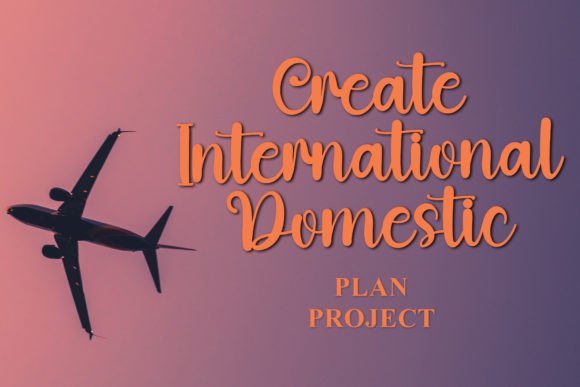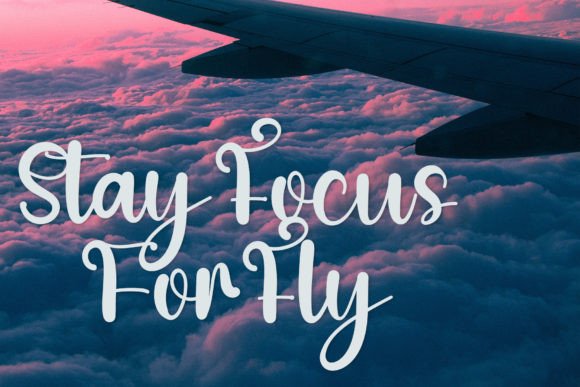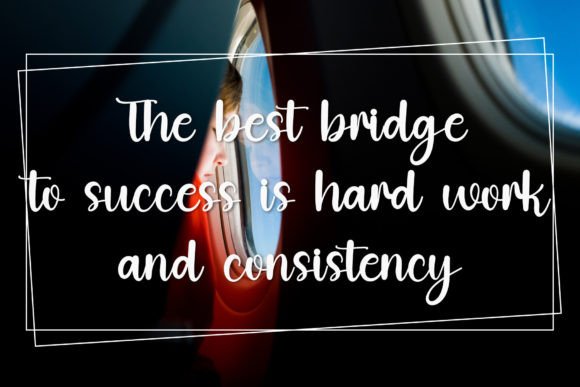
The Flight Font: Elevate Your Designs with Elegance
Have you ever been in the middle of a design project, and suddenly, you’re stuck on finding the perfect font? I recall a recent experience where I was working on a branding project for a luxury travel company. The client wanted a font that exuded elegance, sophistication, and a touch of adventure. After hours of searching, I stumbled upon the Flight font, and it was love at first sight! 😍
The Flight font is a beautiful, handwritten typeface that boasts an elegant touch, making it perfect for a wide range of projects. Its distinct and timeless style has won my heart, and I’m excited to share my experience with you.
- ✨ Elegant and sophisticated design
- ✨ Unique and distinctive style that sets it apart from other fonts
- ✅ Perfect for projects that require a touch of luxury and refinement
While the Flight font is exceptional, there are a few minor quirks to be aware of:
- 🤔 Limited availability of stylistic alternates, which may limit its versatility in certain projects
- ⚠️ May not be suitable for very large or very small font sizes, as some details may get lost
The Story Behind Flight Font
The Flight font was designed by a talented typographer who wanted to create a font that captured the essence of freedom and adventure. Inspired by the curves and lines of vintage travel posters, the designer aimed to create a font that would evoke a sense of luxury and refinement. With its elegant touch and timeless style, the Flight font has become a popular choice among designers and crafters.
Q: What is the Flight font best suited for?
A: The Flight font is perfect for projects that require a touch of elegance and sophistication, such as luxury branding, travel brochures, and high-end product packaging.
Q: Is the Flight font available in different weights and styles?
A: The Flight font may be available in different weights and styles, depending on the version you have. Please check the font files or documentation for more information.